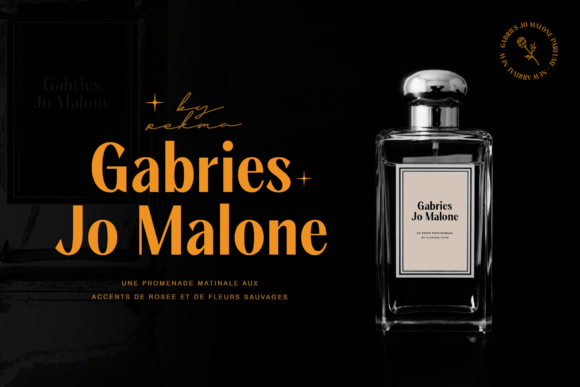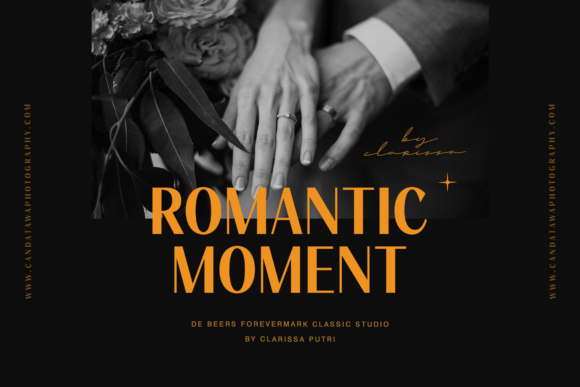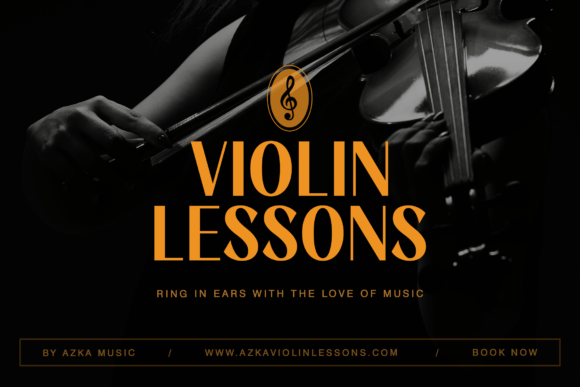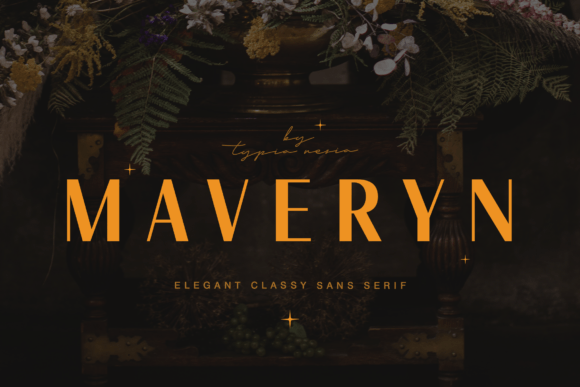
Introduction to Maveryn Font
Maveryn is a modern and elegant contrast sans-serif font that exudes classic beauty and sophistication.
With its clean and refined design, this font is perfect for various applications, including wedding invitations, branding, logos, editorial designs, and more .
Key Features of Maveryn Font
Why Choose Maveryn Font?
Maveryn Font offers exceptional quality and versatility, making it a valuable addition to your design toolkit. Whether you’re creating for personal projects or commercial use, Maveryn Font delivers professional results.